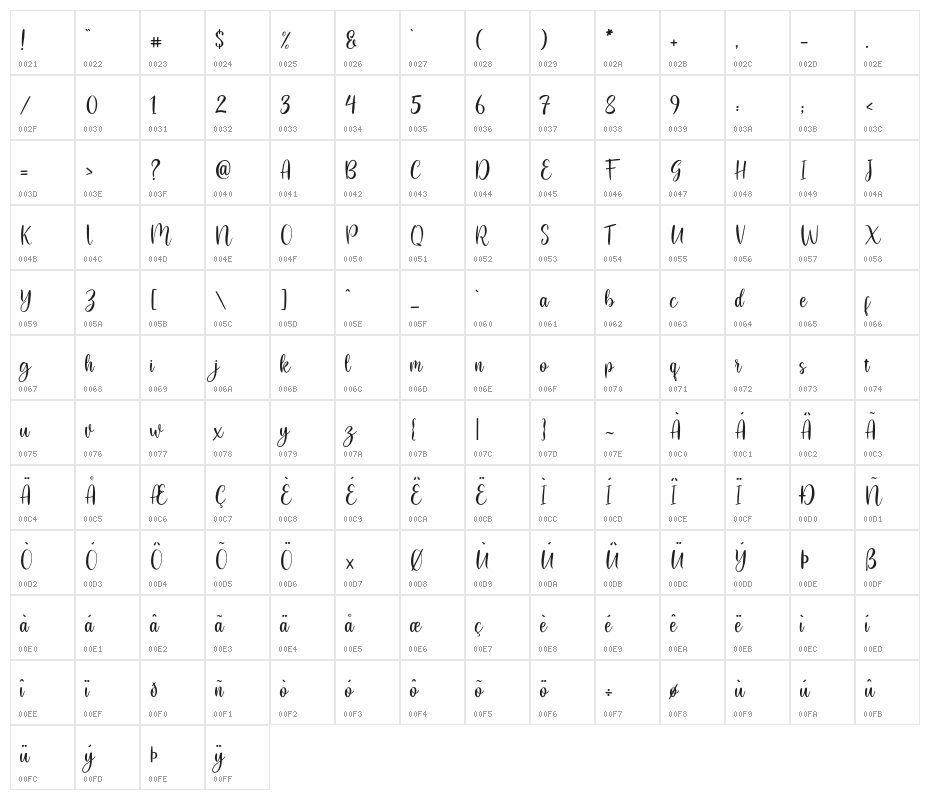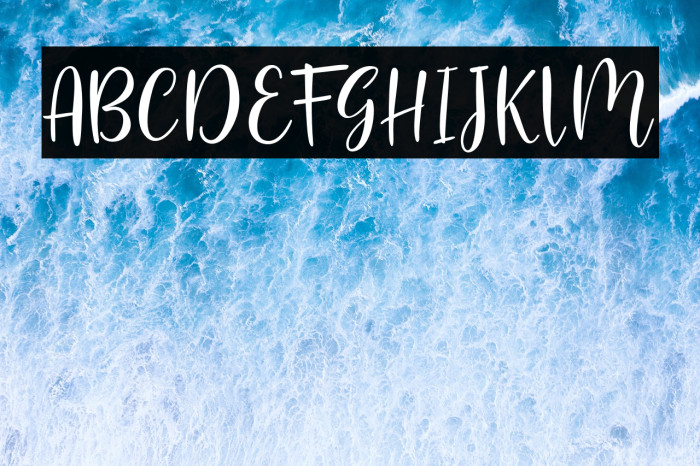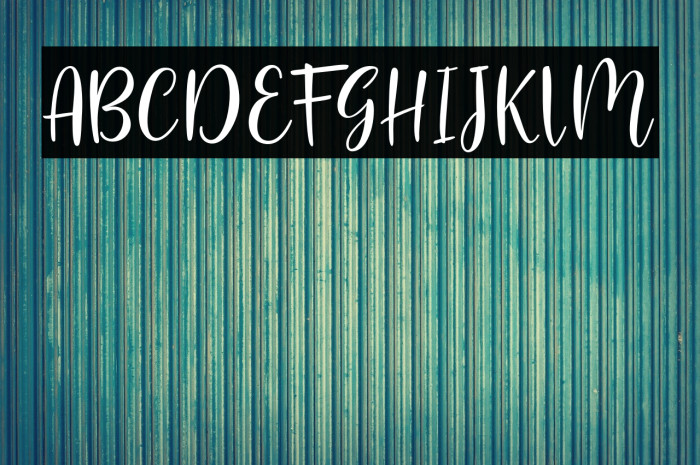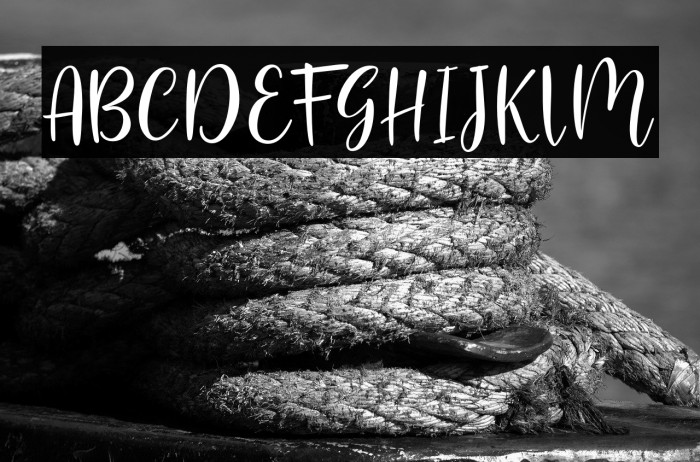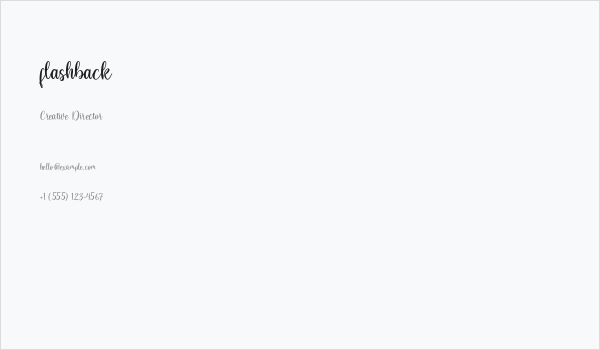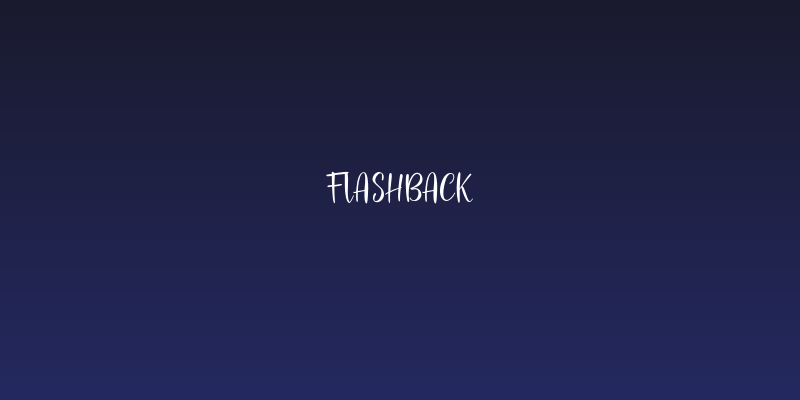
flashback Font
flashback Description
This font exudes a playful and elegant charm, characterized by its flowing, cursive style. The letters are interconnected, creating a sense of continuity and fluidity. The uppercase letters are bold and expressive, while the lowercase letters maintain a consistent rhythm with gentle curves and loops. The numerals are distinctive, with a slight slant that complements the overall script style. Special characters are crafted with the same attention to detail, ensuring a cohesive look across all glyphs. This font is perfect for adding a personal touch to any design, making it ideal for invitations, greeting cards, and branding projects.
| Use Case | Logos, Headlines, Invitations |
| Proposed Projects | Ideal for invitations, greeting cards, branding, and any project requiring a personal touch. |